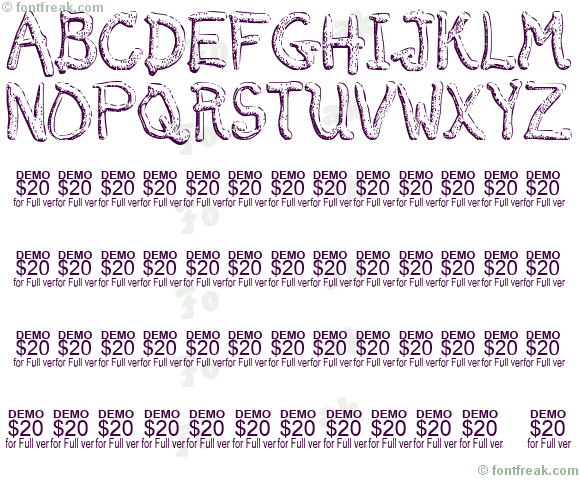
Smelted Demo
Smelted Demo is a distinctive display font designed by Stanley Roland Frantz, showcasing a unique aesthetic that marries contemporary and vintage influences. This font is categorized as a decorative typeface, characterized by its bold, defaced appearance that draws attention and evokes a sense of creativity. The stroke weight varies throughout the characters, giving it an uneven, organic feel that enhances its artistic expression. This visual irregularity, combined with strategic spacing, ensures that the font remains legible while still being strikingly stylish.
The Smelted Demo font is ideal for a variety of creative applications. It can elevate the design of wedding invitations, adding a touch of elegance and individuality. Its bold presence makes it well-suited for movie posters, where it can effectively capture the essence of a film's theme or genre. Additionally, restaurant menus can benefit from the font's unique character, making dishes stand out and enticing customers. Graphic designers will find this font particularly useful for branding projects that aim to convey a sense of originality and flair. Small business owners can also leverage the Smelted Demo font to create memorable logos or promotional materials that distinguish their brand in a competitive market.